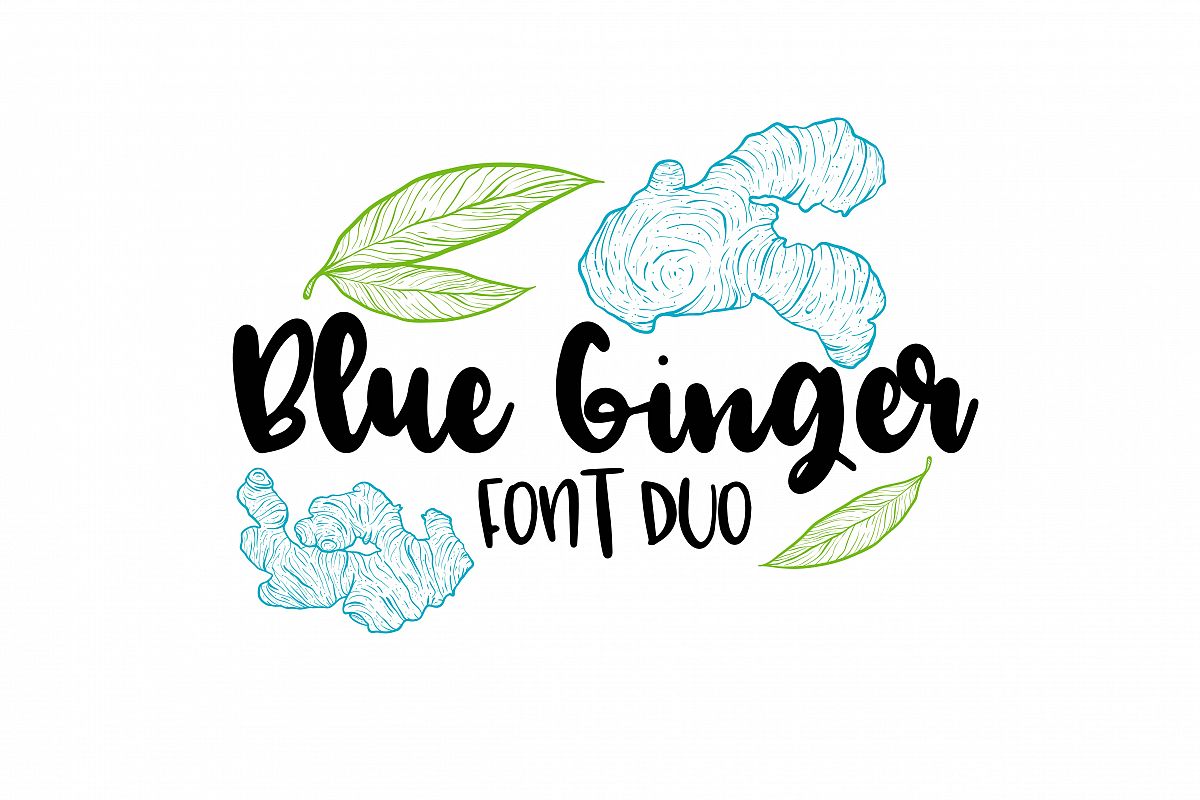
Blue Ginger Font Duo
Meet Blue Ginger! A super fun font duo great for crafting, branding, tee design and more! Mix and Match letters to create your own unique combos!
Blue Ginger Font Duo